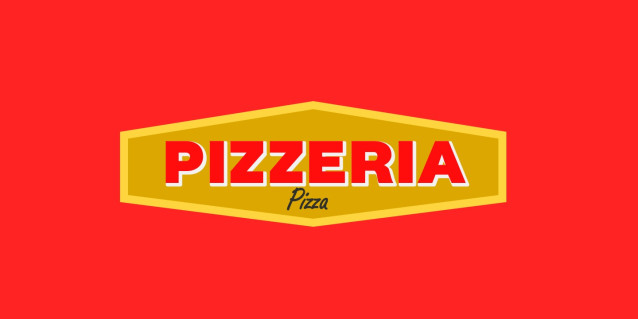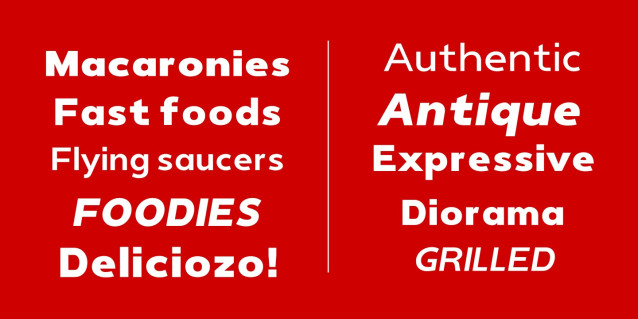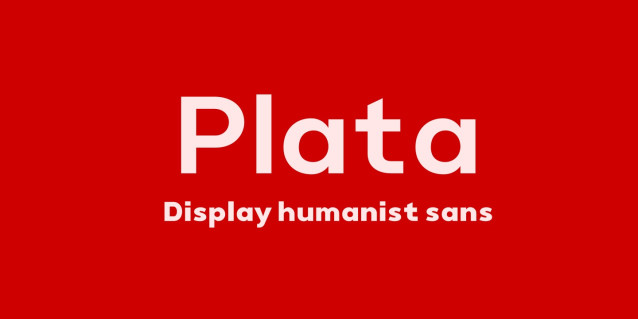
Plata Font Family
Plata Font Family is a humanist display font with unique authentic value. available with 4 weights will add value to the authenticity of this font. generally suitable for use in logo design, packaging.